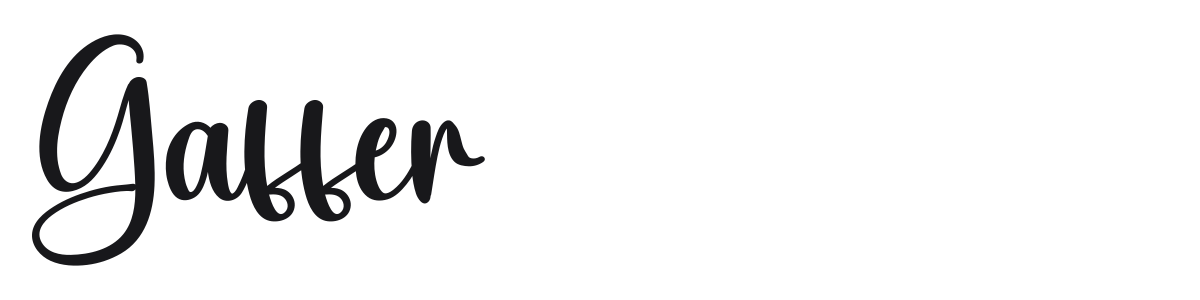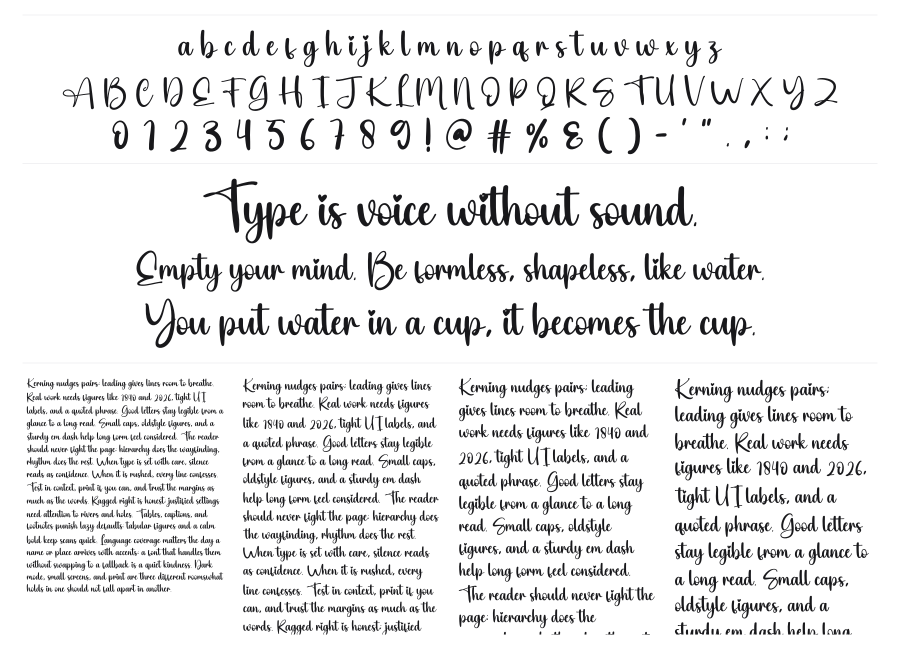
Gaffer
by Scratchones · Website
Gaffer is a bold casual script with a lively, bouncy rhythm and natural handwritten warmth. The thick downstrokes and looping ascenders give it a confident, expressive quality, while small decorative touches like a heart accent keep it feeling personal rather than generic. Equally at home on wedding invitations, product labels, and social media graphics.